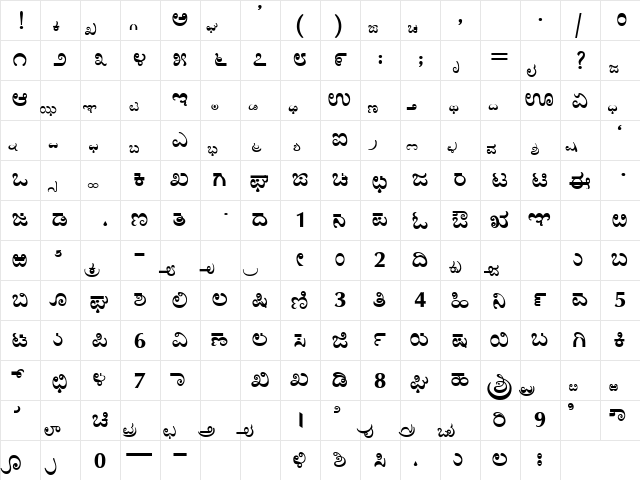
Taralabalu Kannada Bold Font Preview
Taralabalu Kannada Bold
Taralabalu Kannada Bold Font Details
Design Context for Taralabalu Kannada Typeface
Taralabalu Kannada is a composed and adaptable typeface that performs quietly and consistently across a wide range of design contexts. Its bold stroke weight gives it real presence on the page.